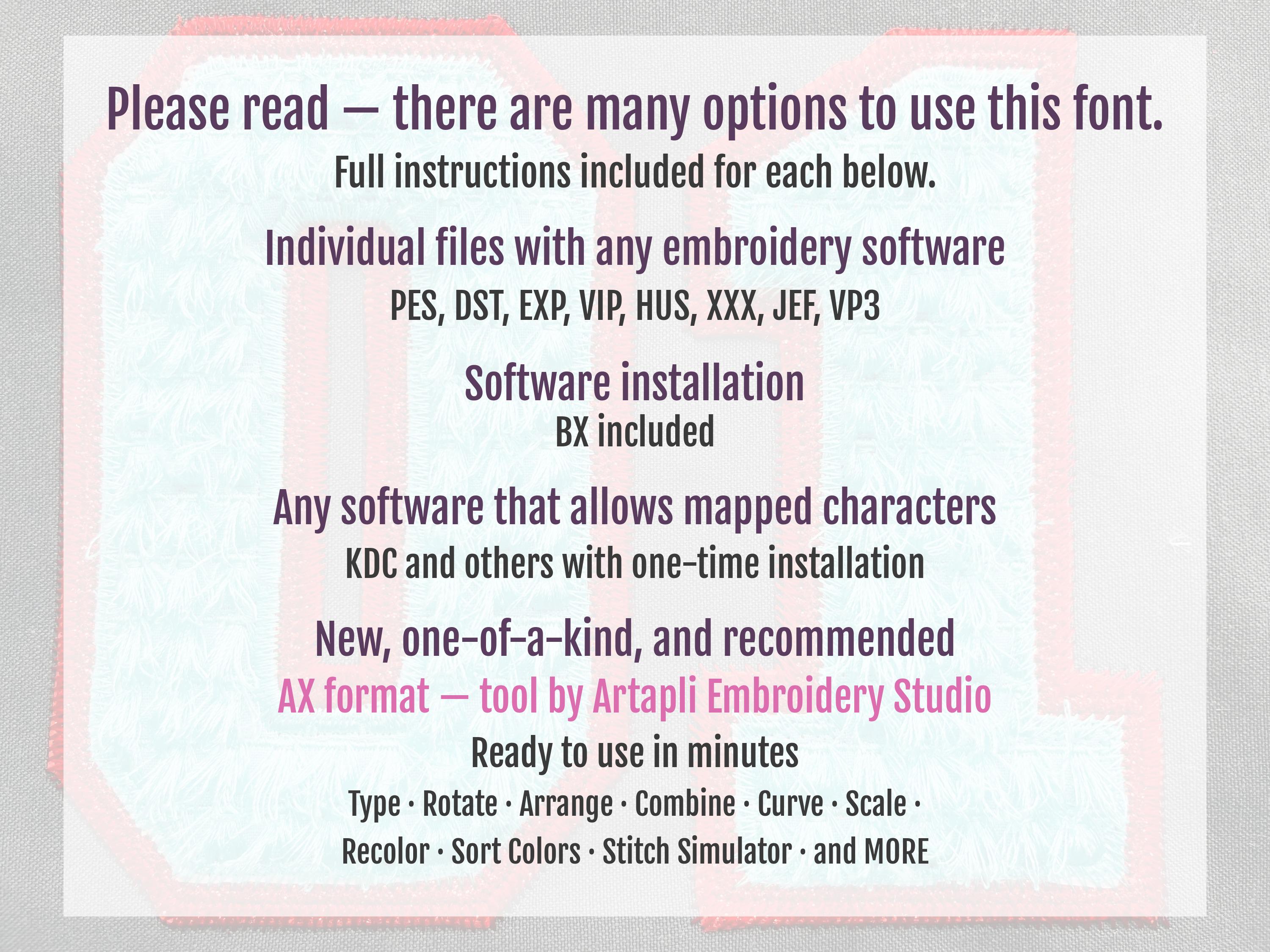
BIG Fringed fluffy Font chenille Glitter Vinyl ZIG-ZAG Double applique layer Athletic Sport School Team Players machine embroidery designs
100 % safe to tear and wash.
It is easy. Stitch the design as usual. Large satin stitches will be loose. Once you complete stitching the design, turn over your hoop to see a reverse side, and cut the bobbin thread, along the large satin stitches. Turn the hoop back over and fluff up the "fringe" around.
Two applique layers (double outline sport font)